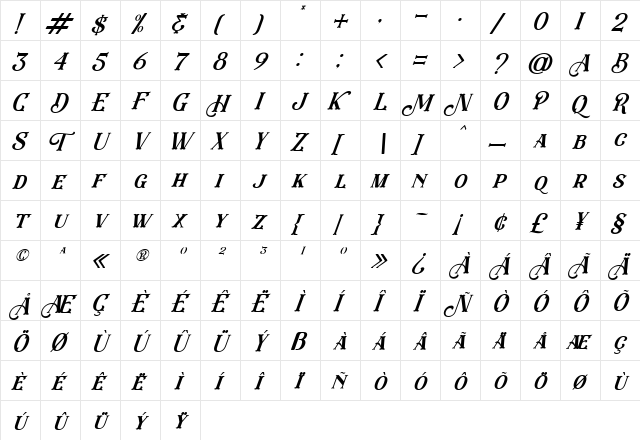
Eastwood Italic Font Preview
Eastwood Italic
Eastwood Italic Font Details
Design Context for Eastwood Typeface
Eastwood taps into classic Western woodtype traditions — bold, characterful, and impossible to ignore. The dynamic lean of this cut emphasises speed and emphasis in any layout.
A natural fit for craft spirits, ranch branding, rodeo events, and Americana-inspired design work.
Font Pairing: Combine Eastwood with a simple slab or neutral sans — period-accurate companions reinforce the vintage feel without competing for attention.
Pro Tip: Use Eastwood for short, impactful bursts of text — it shines in poster headlines and product names rather than extended copy.